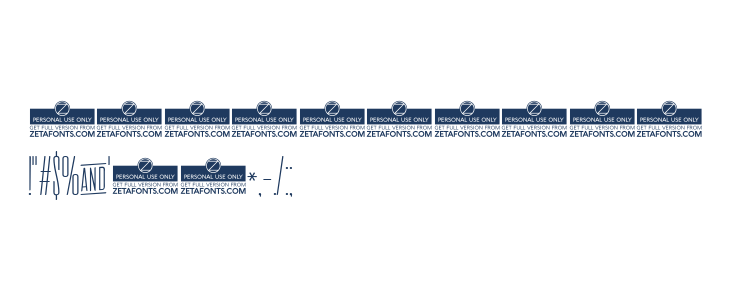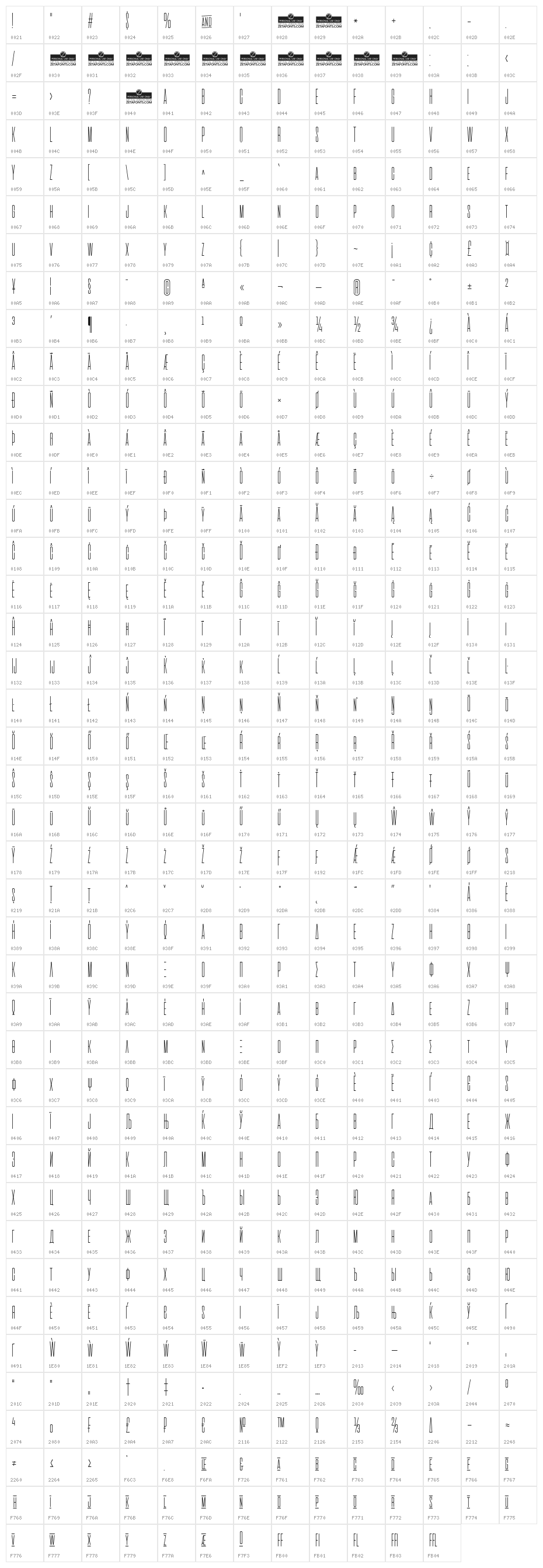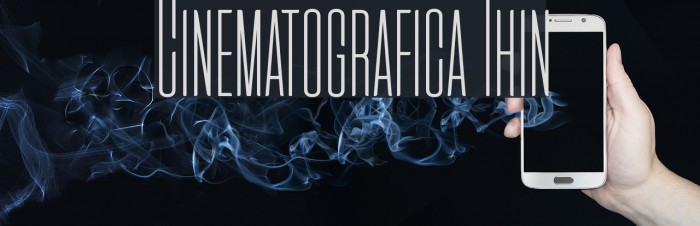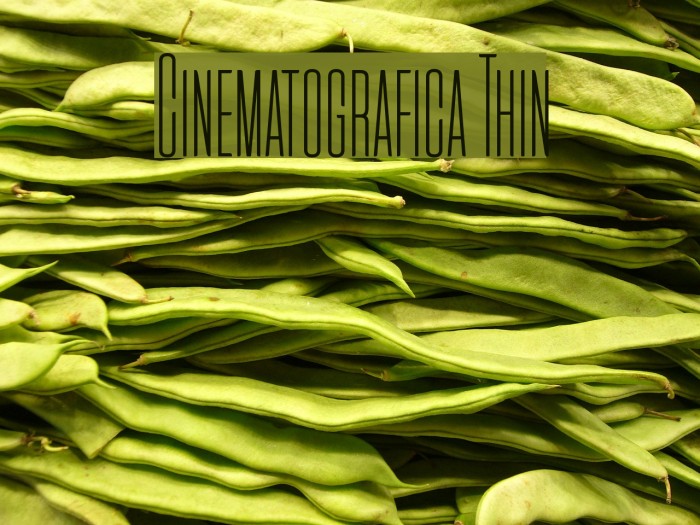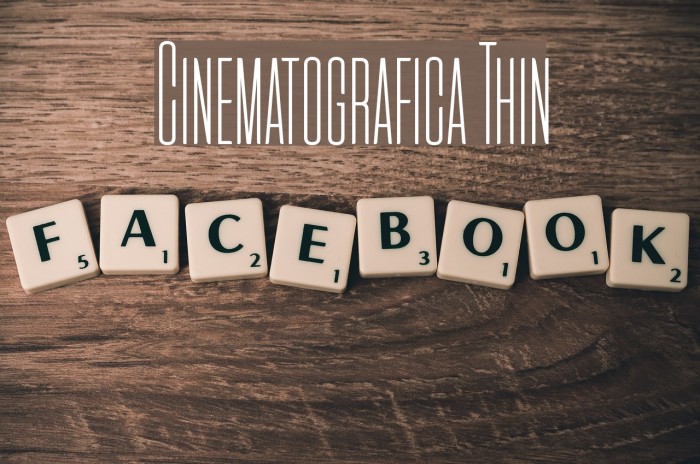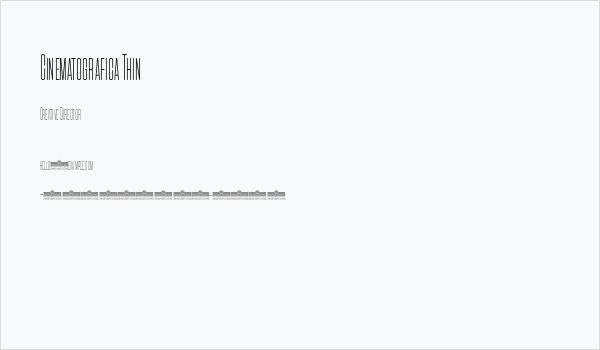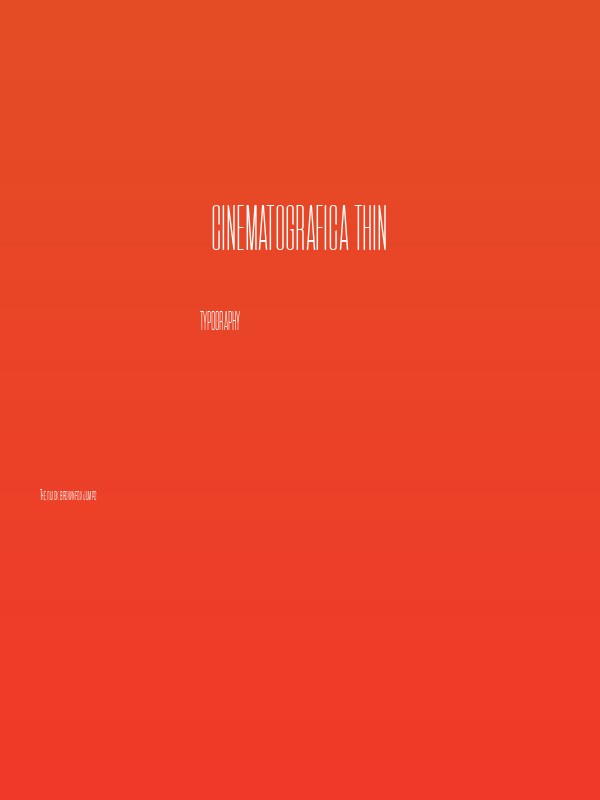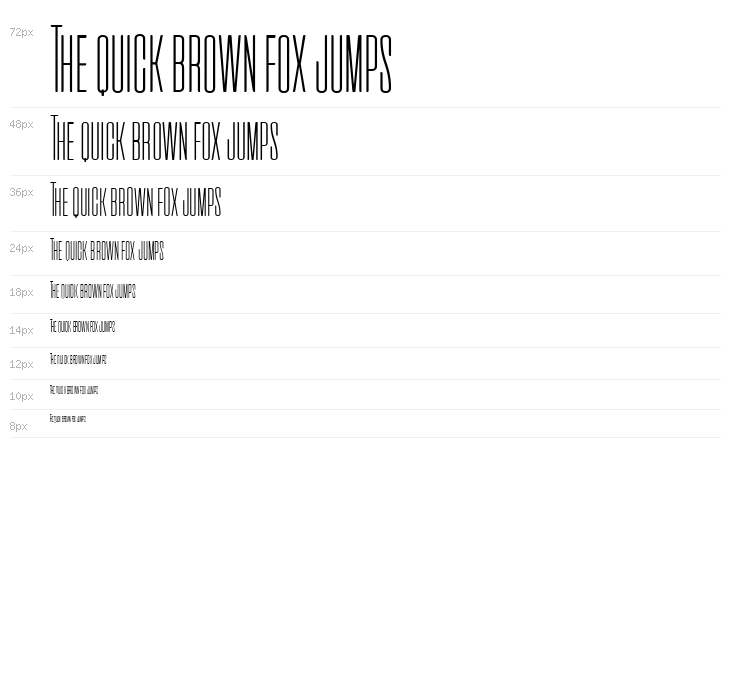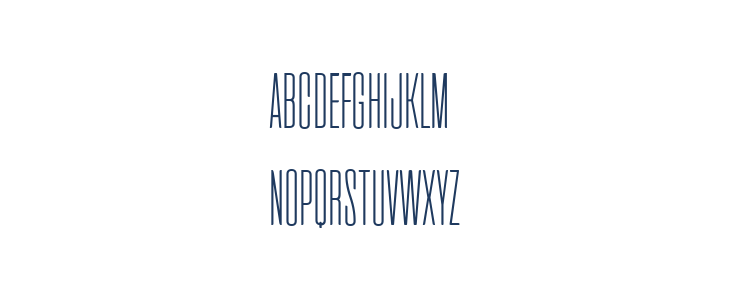
Cinematografica Thin Font
Cinematografica Thin Description
This font features an elongated and narrow design, characterized by its thin and elegant strokes. The uppercase letters are tall and slender, giving a sophisticated and modern appearance. The lowercase letters maintain a consistent style, complementing the uppercase with their sleek and streamlined form. The numerals are clear and concise, matching the overall aesthetic of the font. Special characters are designed with the same attention to detail, ensuring a cohesive look across all elements. This font's thin weight and high contrast make it suitable for creating a dramatic and impactful visual presence.
| Proposed Projects | Ideal for fashion magazines, luxury branding, film posters, and elegant invitations. |